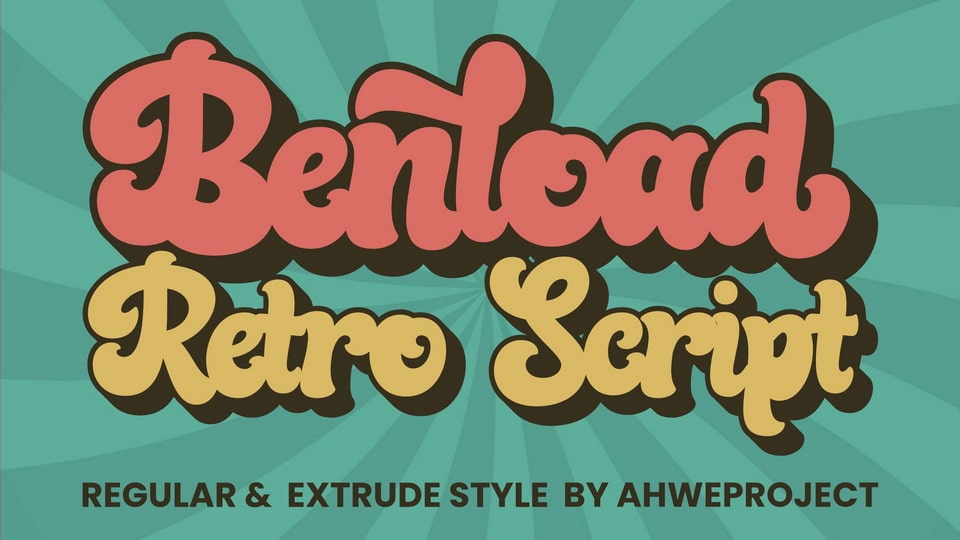
Download Benload font, a bold and retro-styled typeface. This font reads strong, confident, and dynamic and can add tons of nostalgic character to your designs.